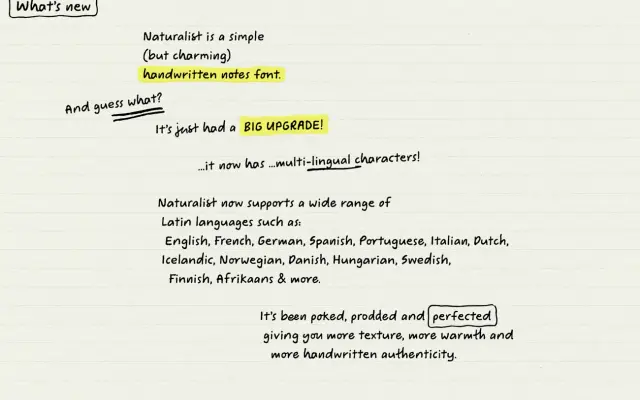
Naturalist
A casual handwritten font with ligatures and subtle texture, aimed at annotations, labels and warm informal copy.
Naturalist mimics the look of handwritten notes, with a slightly textured quality and natural-feeling ligatures for common pairs such as ee, th and st. It covers a broad range of Latin-based languages including French, German, Spanish, Portuguese, Dutch, Icelandic and several Scandinavian languages. Suited to labelling, annotation graphics and any context where a realistic handwritten feel is preferred over a polished calligraphic script.
A casual handwritten script mimicking informal handwritten notes, with ligatures and texture that reinforce its script classification rather than display lettering.